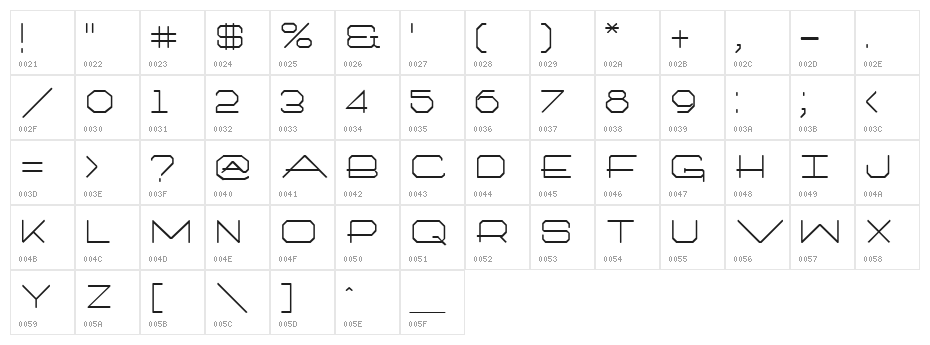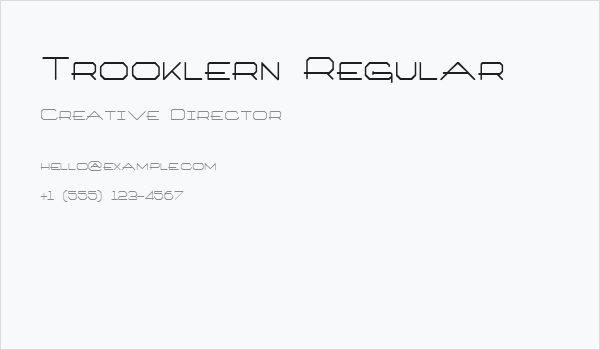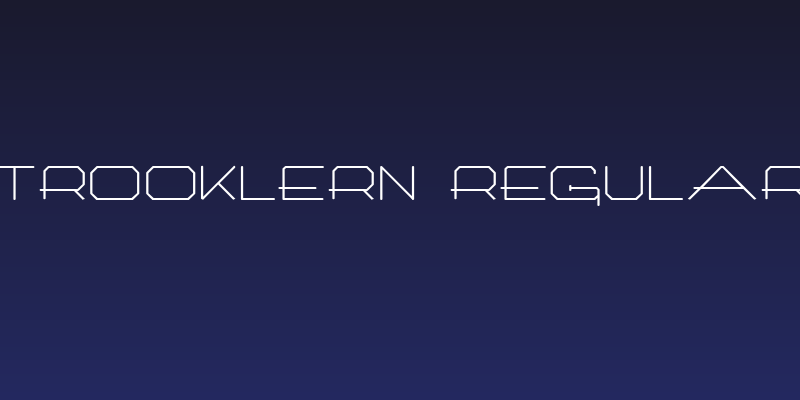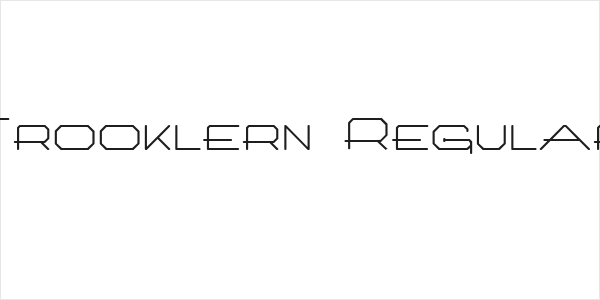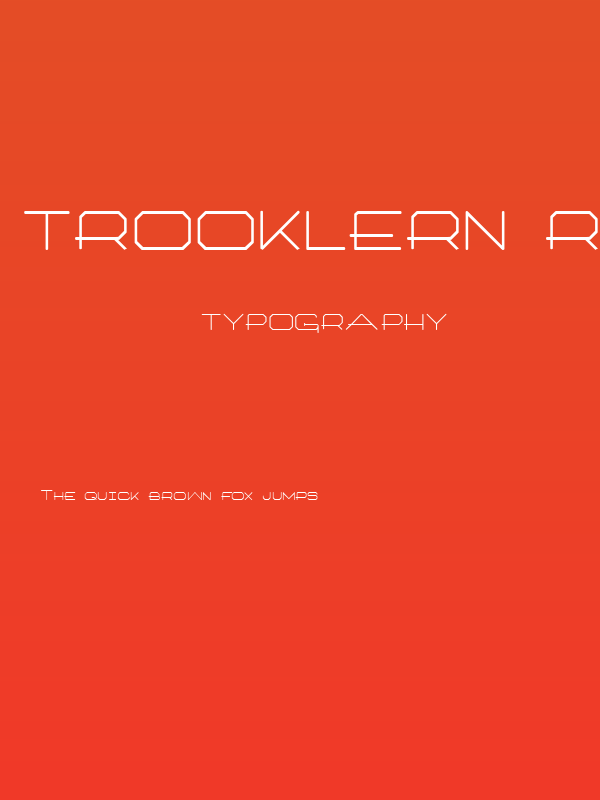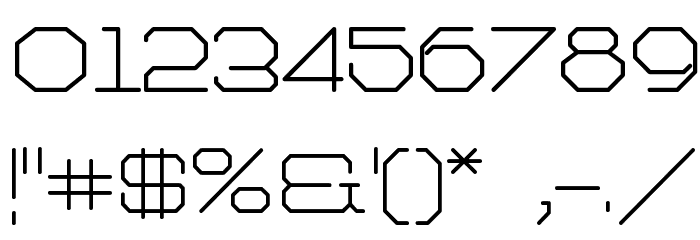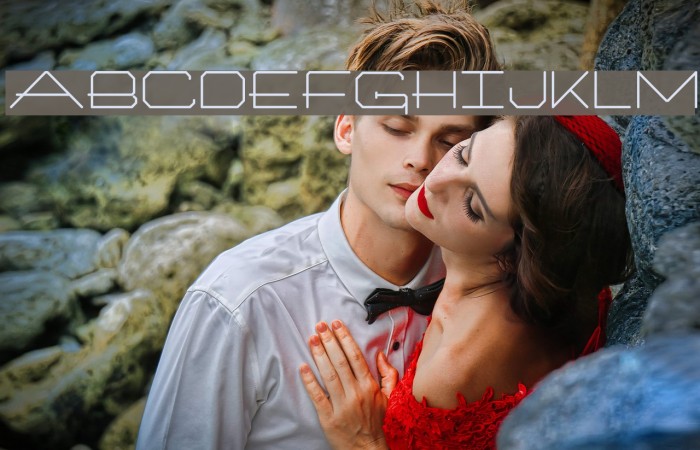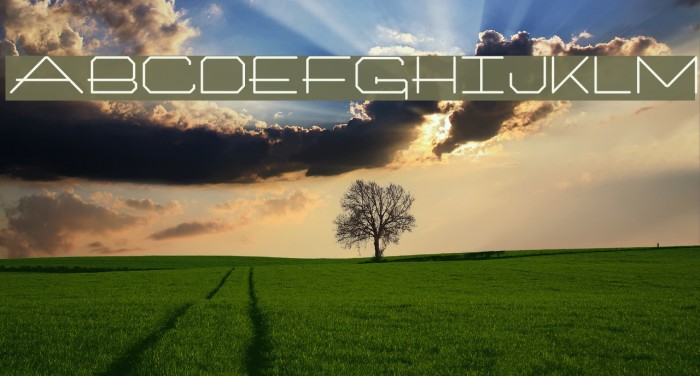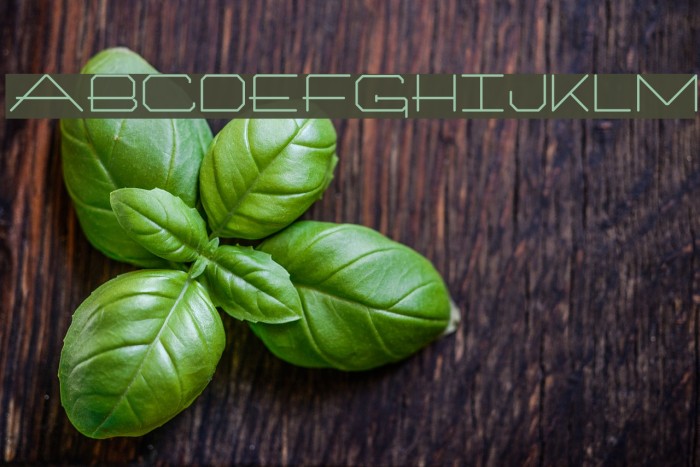
Trooklern Regular Font
Trooklern Regular Description
This font features a geometric and angular design, characterized by its octagonal shapes and sharp edges. The letters are constructed with straight lines and precise angles, giving it a modern and technical appearance. The uniformity in the structure of each character creates a cohesive and futuristic look. The font maintains a consistent stroke width throughout, contributing to its clean and minimalistic style. It is highly legible and distinct, making it suitable for various digital and print applications where a contemporary and innovative feel is desired.
| Use Case | Logos, Headlines, Digital interfaces |
| Proposed Projects | Ideal for technology branding, digital interfaces, video game design, and futuristic-themed projects. |